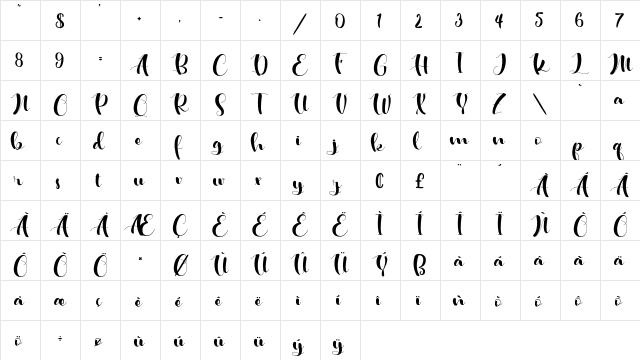
Hosabien Regular
| Foundry | Typhoon Type - Suthi Srisopha |
| Designer | Typhoon Type - Suthi Srisopha |
Design Context for Hosabien Typeface
Hosabien is a composed and adaptable typeface that performs quietly and consistently across a wide range of design contexts.